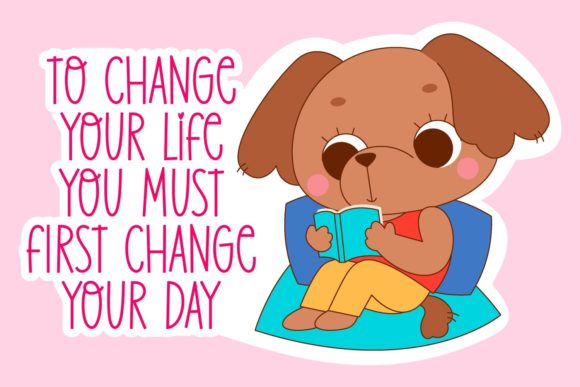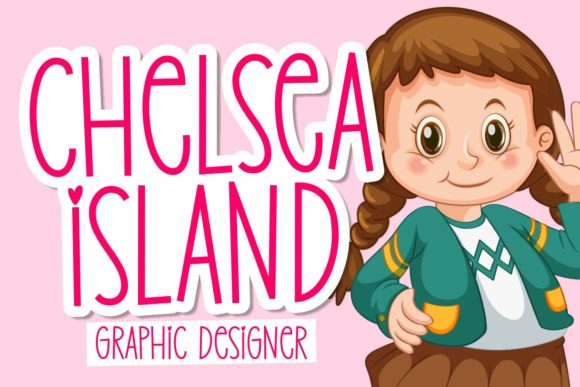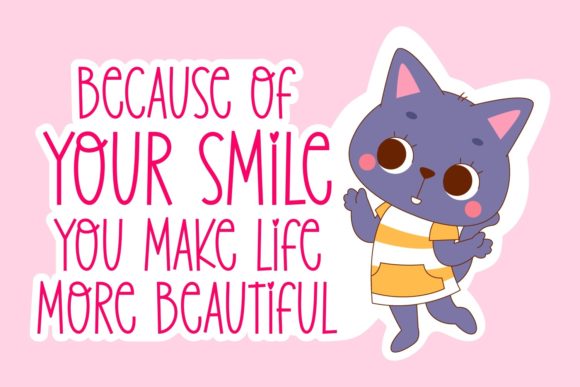
Introduction to Lovely Kristine Font
As I stood in front of my chalkboard, marker in hand, brainstorming ideas for my next creative project, I stumbled upon the perfect solution – the Lovely Kristine Font. Its authentic, handwritten style instantly transported me to a nostalgic era of chalkboard quotes and simple, yet effective teaching materials. The font’s versatility and charm made it an instant favorite, and I couldn’t wait to incorporate it into my design.
The Lovely Kristine Font is more than just a design resource – it’s a valuable asset for any creative project that requires a touch of authenticity and personal flair. With its high-quality, transparent background, this font is perfect for adding a realistic feel to your designs. And the best part? It’s available for free download, making it an accessible resource for designers of all levels.
Key Features of Lovely Kristine Font
- Unique and elegant script font design, ideal for creative projects that require a touch of sophistication and romance.
- Designed to be highly legible, even at small font sizes, making it an excellent choice for body text, headings, and titles in various creative projects.
Honest Review: Lovely Kristine Font
I recently stumbled upon the Lovely Kristine Font while searching for a design resource to use in a creative project. I was excited to find that it’s available for free download, making it a fantastic addition to any designer’s arsenal.
One of the things that works well about the Lovely Kristine Font is its high-quality design. The font is clean, elegant, and features a beautiful, transparent background that makes it easy to use in a variety of contexts. Whether you’re working on a personal project or a commercial design, this font is sure to impress.
Here are some of the things that I love about the Lovely Kristine Font:
- ✨ Transparent background for easy use
One limitation of the Lovely Kristine Font is that it’s only available in a limited range of weights and styles. While this isn’t a deal-breaker for me, it may be a concern for designers who need a wider range of options for their project.
Overall, I’m really impressed with the Lovely Kristine Font. It’s a fantastic design resource that’s perfect for anyone looking for a high-quality, free font to use in their creative project. Just be aware of the limitations, and you’ll be all set to create some amazing designs with this font!
The Lovely Kristine Font is perfect for creative projects that require a high-quality, elegant font. Use it for wedding invitations, birthday party decorations, or any other design project that demands a sophisticated look.